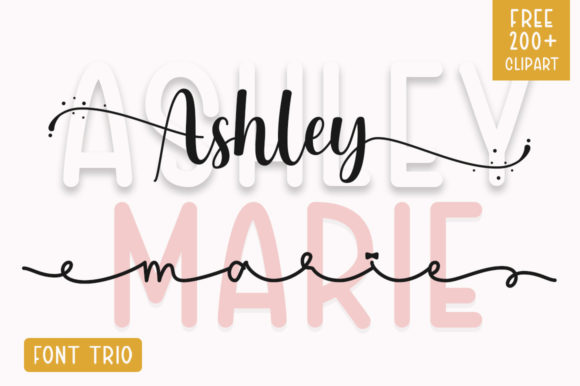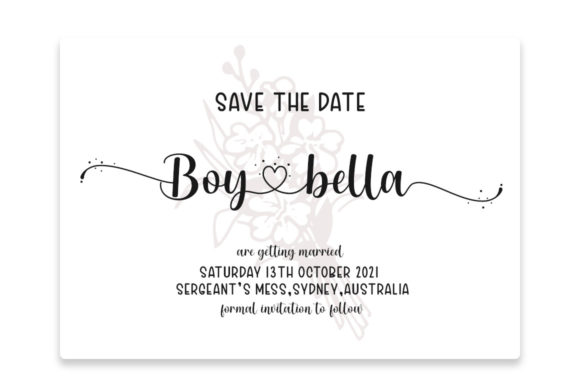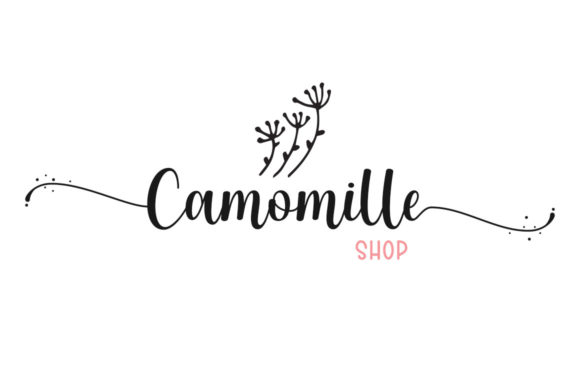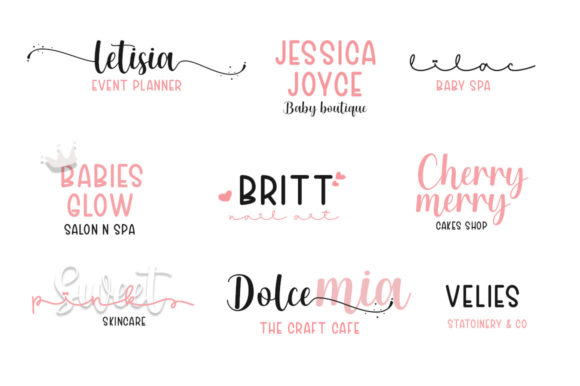
Ashley Marie Font
About the Ashley Marie Font
Let us introduce you to Ashley Marie Font, where timeless design meets modern craftsmanship. Ashley Marie is a lovely duo font (script and sans serif). Incredibly versatile, this font fits a wide pool of designs, elevating them to the highest levels. Add this font to your favorite creative ideas and notice how it makes them come alive!
Ashley Marie’s script and sans serif pairing works exceptionally well for branding projects requiring a touch of elegance and modernity, particularly logos, short headlines, and social media graphics. It’s also effective on packaging for high-end products or boutique brands. Avoid using the script in large blocks of text or body copy; its delicate nature doesn’t lend itself to readability at smaller sizes. The sans serif is more suitable for short supporting text, but shouldn’t be used for extensive body copy.
The font’s overall personality is sophisticated yet approachable. Its elegant script suggests a level of refinement, while the clean sans serif offers a contemporary balance. For optimal pairings, consider using a classic serif like Garamond or a geometric sans serif like Futura to complement its refined yet modern feel. Alternatively, a playful, rounded sans-serif could add a touch of contrast, but should be used sparingly.
Avoid using Ashley Marie for projects requiring high readability in extended text, such as books or lengthy website content, or for user interfaces where clear legibility is paramount. Its strengths lie in creating a visually appealing and memorable impression through impactful short text and branding elements.
Ashley Marie Font Usage Examples
Ashley Marie Font Example